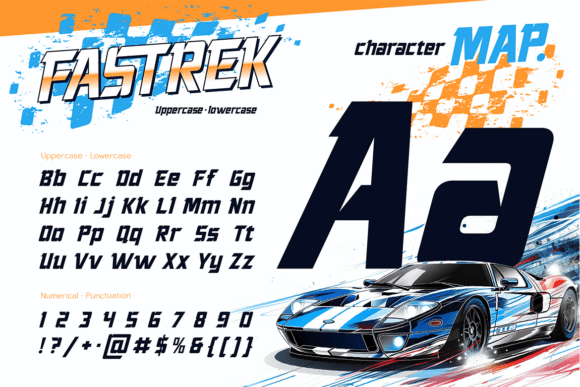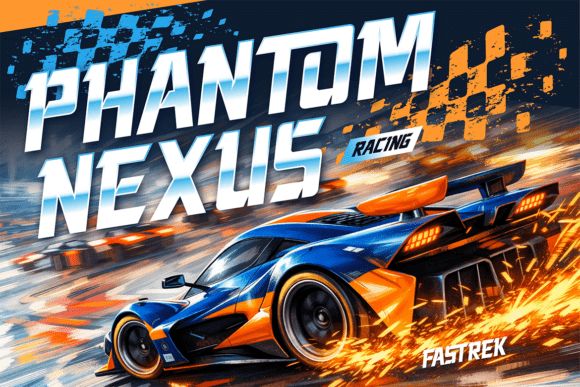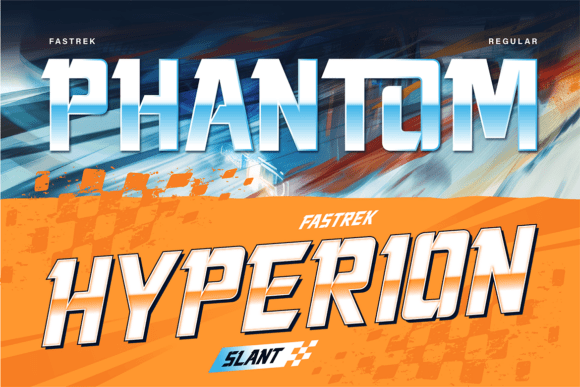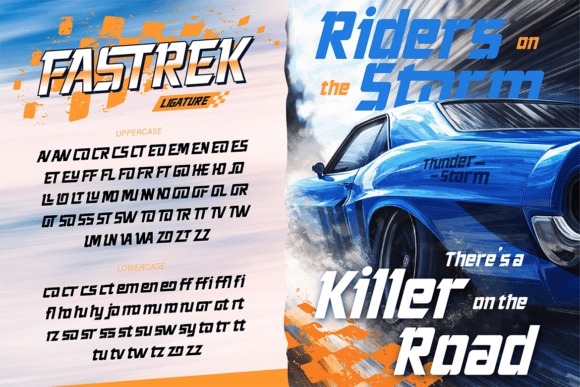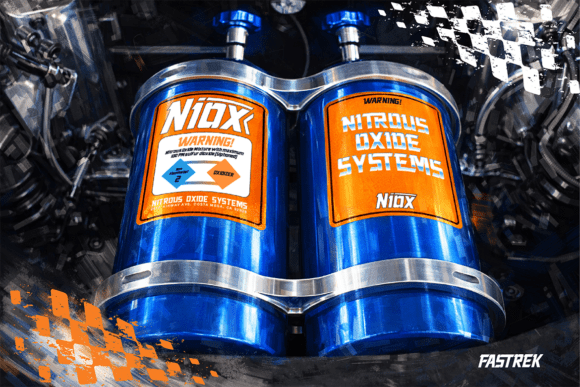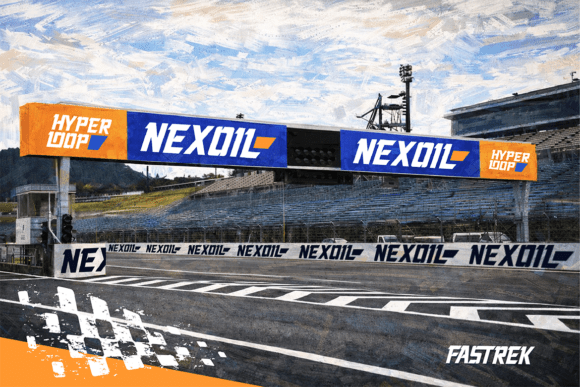
Introduction to Fastrek Font
FASTREK is a modern racing display font built to deliver speed, power, and a bold competitive look.
Inspired by motorsport culture, high-performance cars, and futuristic racing visuals, this font features sharp angles, strong geometry, and dynamic letterforms that instantly create a sense of motion Designed for impact, FASTREK comes with Regular and Slant styles, allowing you to switch between a clean, solid look and a more aggressive, fast-paced appearance.